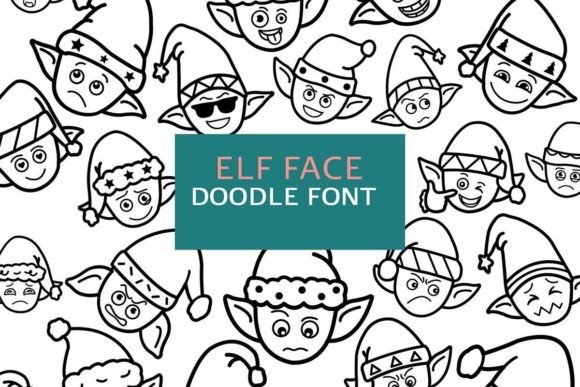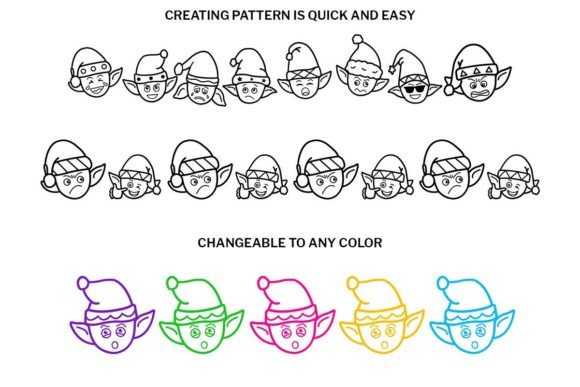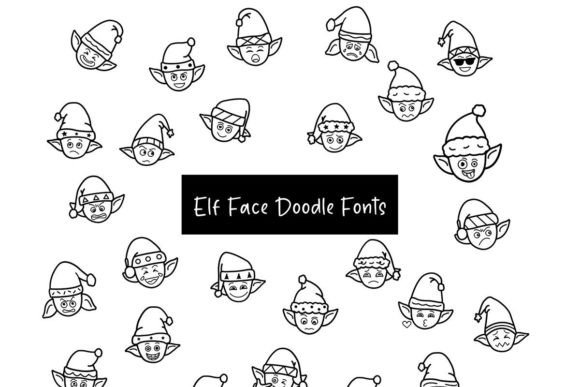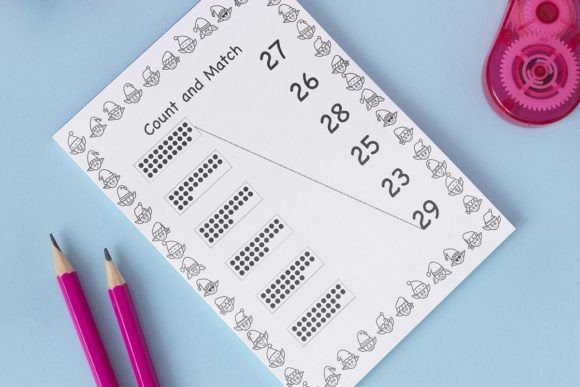
in Dingbats FontsElf Face Doodle Font 91 Views View Gallery 4 images About Elf Face Doodle FontElf Face Doodle is a fun and cute dingbat font. Its versatility makes it great for a wide pool of craft projects, designs, planners, diaries, activity books, or anything that your heart desires!DOWNLOAD NOW Elf Face Doodle Font Written by canyonadmin Leave a Reply Cancel replyYour email address will not be published. Required fields are marked *Comment *Name * Email * Website Save my name, email, and website in this browser for the next time I comment.